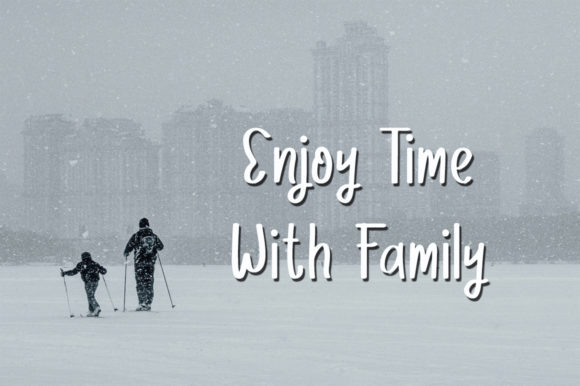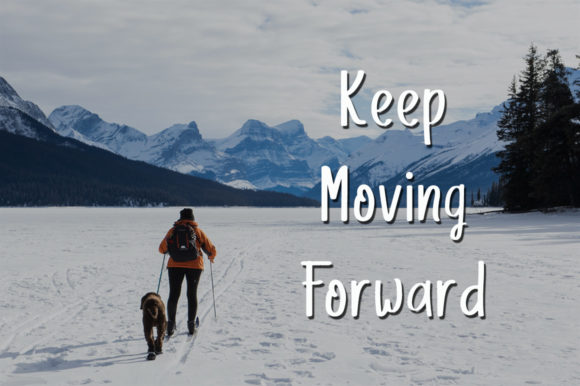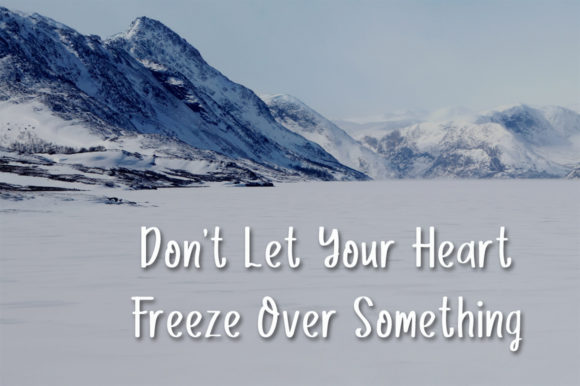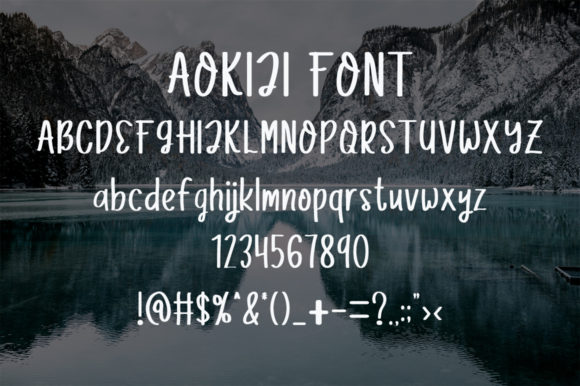
Aokiji Font: The Sweet and Neat Lettered Handwritten Font for Your Creative Projects
Are you a designer, crafter, or DIY enthusiast looking for a unique and versatile font to elevate your creative projects? Look no further than Aokiji Font, a sweet and neat lettered handwritten font that’s perfect for a wide range of designs. With its natural and unique style, Aokiji Font is incredibly fitting for various projects, and the only limit is your imagination!
What is Aokiji Font?
Aokiji Font is a beautifully crafted handwritten font that’s designed to add a personal touch to your designs. Its sweet and neat lettering style makes it perfect for projects that require a friendly and approachable feel. Whether you’re creating a logo, branding materials, social media graphics, or craft projects, Aokiji Font is an excellent choice.
Key Features of Aokiji Font
- Unique and Natural Style: Aokiji Font boasts a distinctive and organic style that’s perfect for designs that require a personal touch.
- Highly Versatile: This font is incredibly versatile and can be used for a wide range of projects, from logos and branding materials to social media graphics and craft projects.
- Easy to Read: Aokiji Font is clear and easy to read, making it perfect for designs that require a high level of legibility.
Creative Uses for Aokiji Font
Aokiji Font is an incredibly versatile font that can be used for a wide range of creative projects. Here are some ideas to get you started:
- Logo Design: Use Aokiji Font to create a unique and memorable logo for your business or brand.
- Branding Materials: Aokiji Font is perfect for creating branding materials, such as business cards, brochures, and letterheads.
- Social Media Graphics: Use Aokiji Font to create eye-catching social media graphics, such as Facebook and Instagram posts.
- Craft Projects: Aokiji Font is perfect for craft projects, such as making cards, scrapbooking, and journaling.
- Wedding and Event Design: Use Aokiji Font to create beautiful wedding and event designs, such as invitations, menus, and signage.
Tips for Using Aokiji Font
Here are some tips for using Aokiji Font in your designs:
- Experiment with Colors: Aokiji Font looks great in a variety of colors, so don’t be afraid to experiment and find the perfect color scheme for your design.
- Play with Font Sizes: Aokiji Font is clear and easy to read at various font sizes, so feel free to experiment with different sizes to create visual interest.
- Combine with Other Fonts: Aokiji Font pairs well with other fonts, so try combining it with other fonts to create a unique and interesting design.
Aokiji Font is a sweet and neat lettered handwritten font that’s perfect for designers, crafters, and DIY enthusiasts. Its natural and unique style makes it incredibly fitting for a wide range of designs, and the only limit is your imagination! With its versatility, legibility, and compatibility with various design software, Aokiji Font is an excellent choice for any creative project.